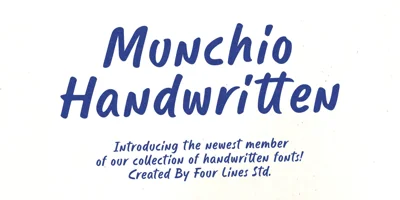
Munchio Font
Munchio Font is perfect for food trucks, snack brands, casual restaurants, playful packaging, children's products, fun marketing campaigns, and appetizing design applications. This delightful typeface brings hungry charm and playful energy to food-related design projects.
Munchio Font is exciting because it captures the joy of eating with its chunky, appetizing letterforms that convey satisfaction and playful hunger while maintaining excellent readability and irresistible appeal across food and snack applications.
The Munchio Font family includes regular and bold weights with playful character variations and appetizing styling elements. This tasty collection provides designers with delicious options for creating memorable and mouth-watering brand experiences.
Munchio Font offers designers access to a deliciously crafted typeface that embodies the pure joy and satisfaction of great food experiences. This appetizing font features chunky letterforms with playful details that create immediate associations with delicious snacks, satisfying meals, and food enjoyment. The typeface showcases fun proportions and appetizing aesthetics that enhance food communications while maintaining professional functionality and broad appeal. Its hungry character makes it particularly suitable for food brands and casual dining establishments that require typography capable of conveying appetite appeal, fun dining experiences, and delicious satisfaction. Munchio Font delivers exceptional appetite impact for applications where serious fonts feel too formal for playful food communications and casual dining experiences. The font's appetizing appeal and playful aesthetic make it an essential tool for designers working on projects that require typographic expression of food enjoyment, snack satisfaction, and culinary fun that resonates with audiences seeking delicious experiences and appetizing visual communication.